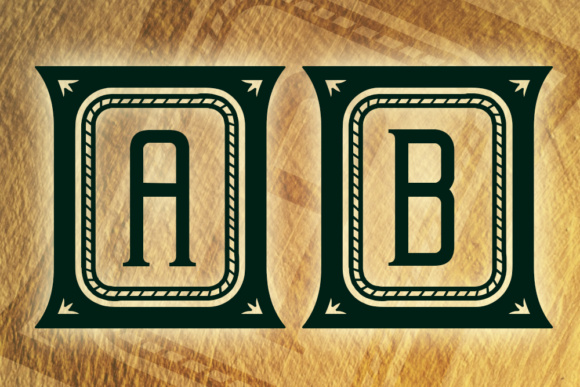
Beholder Capitals Font: Elevate Your Designs with a Touch of Elegance
Are you a designer or crafter looking for a unique and stylish font to elevate your projects? Look no further than Beholder Capitals, a great decorative font that is sure to make a statement. With its elegant and sophisticated design, Beholder Capitals is perfect for a variety of applications, from posters and headlines to banners and more.
The Features of Beholder Capitals Font
Beholder Capitals is a decorative font that boasts a range of features that make it stand out from the crowd. Here are just a few of the things that make this font so special:
• Elegant Design: Beholder Capitals has a sophisticated and elegant design that is sure to add a touch of class to any project.
• Decorative Style: This font is perfect for designers and crafters who want to add a decorative touch to their work.
• Versatile: Beholder Capitals can be used for a wide range of applications, from posters and headlines to banners and more.
• Easy to Read: Despite its decorative style, Beholder Capitals is easy to read, making it perfect for use in a variety of contexts.
Uses for Beholder Capitals Font
Beholder Capitals is a versatile font that can be used for a wide range of applications. Here are just a few ideas to get you started:
• Posters: Add a touch of elegance to your posters with Beholder Capitals. This font is perfect for creating eye-catching headlines and titles.
• Headlines: Use Beholder Capitals to create bold and eye-catching headlines for your blog posts, articles, and more.
• Banners: Create stunning banners with Beholder Capitals. This font is perfect for adding a touch of sophistication to your banners.
• Signs: Use Beholder Capitals to create eye-catching signs for your business or event.
• Social Media Graphics: Add a touch of elegance to your social media graphics with Beholder Capitals. This font is perfect for creating eye-catching graphics for Facebook, Instagram, Twitter, and more.
Tips for Using Beholder Capitals Font
Here are a few tips for using Beholder Capitals to get the most out of this amazing font:
• Use it Sparingly: Beholder Capitals is a decorative font, so it’s best to use it sparingly. Use it for headlines and titles, and a simpler font for body text.
• Experiment with Colors: Beholder Capitals looks great in a variety of colors. Experiment with different colors to find the one that works best for your project.
• Pair it with Other Fonts: Beholder Capitals can be paired with other fonts to create a unique and interesting look. Experiment with different font combinations to find the one that works best for your project.
Beholder Capitals is a great decorative font that is sure to elevate your designs. With its elegant and sophisticated design, this font is perfect for a variety of applications, from posters and headlines to banners and more. Whether you’re a designer or crafter, Beholder Capitals is a great choice for anyone looking to add a touch of elegance to their projects. So why wait? Download Beholder Capitals today and start creating stunning designs that are sure to impress.
• What is Beholder Capitals?: Beholder Capitals is a decorative font that is perfect for adding a touch of elegance to your designs.
• What is Beholder Capitals used for?: Beholder Capitals can be used for a wide range of applications, including posters, headlines, banners, and more.
• Is Beholder Capitals easy to read?: Yes, despite its decorative style, Beholder Capitals is easy to read, making it perfect for use in a variety of contexts.